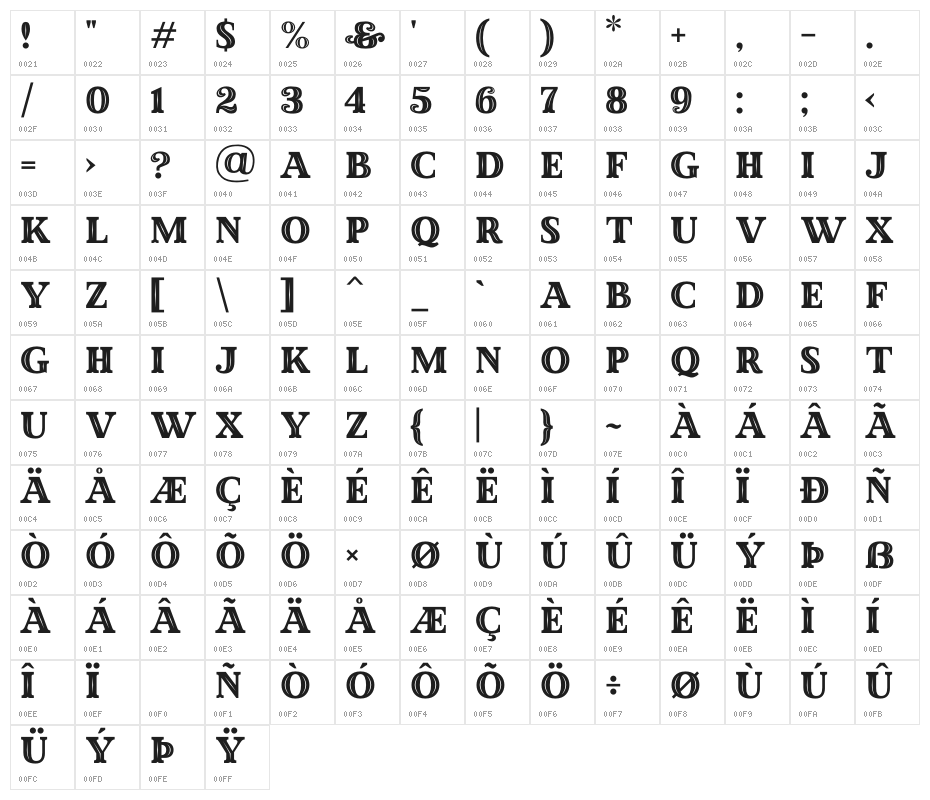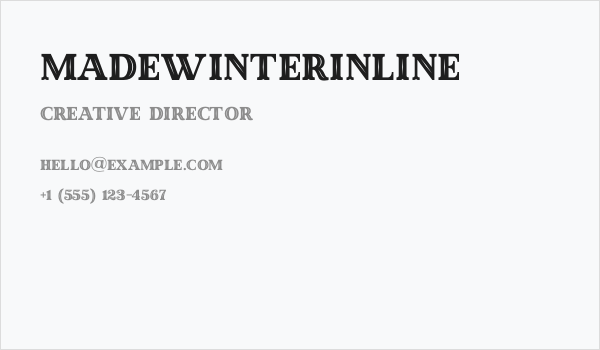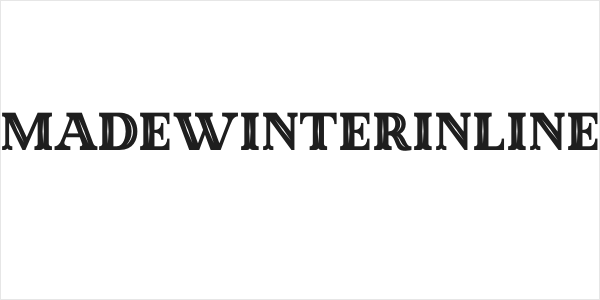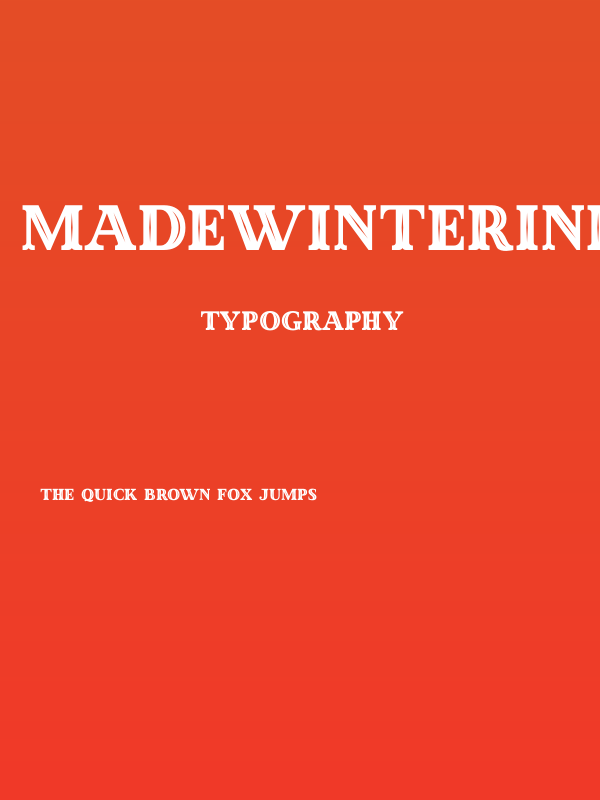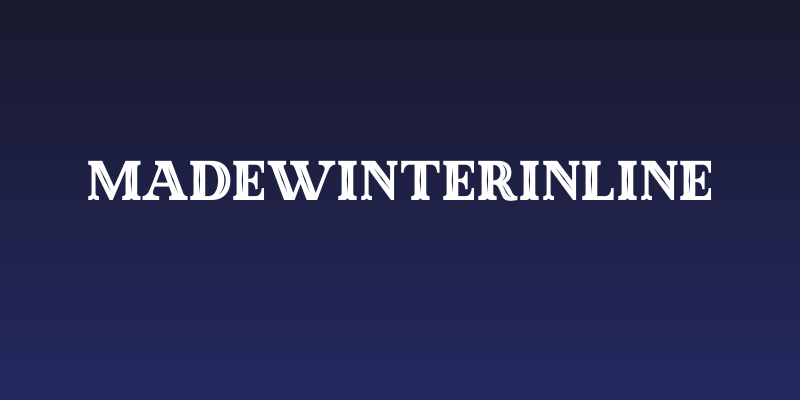
MadeWinterInline Font
MadeWinterInline Description
This font features a bold, decorative style with an inline design that adds a unique flair to each character. The uppercase letters are robust and commanding, while the lowercase letters maintain a consistent style that complements the overall aesthetic. The numbers are equally bold, with a distinctive inline that enhances their readability and visual appeal. Special characters are crafted with the same attention to detail, ensuring a cohesive look across all glyphs. The font's design is both modern and classic, making it versatile for various applications.
| Overall Style | Modern, Classic |
| Proposed Projects | Ideal for branding, headlines, posters, and any project requiring a strong visual impact. |